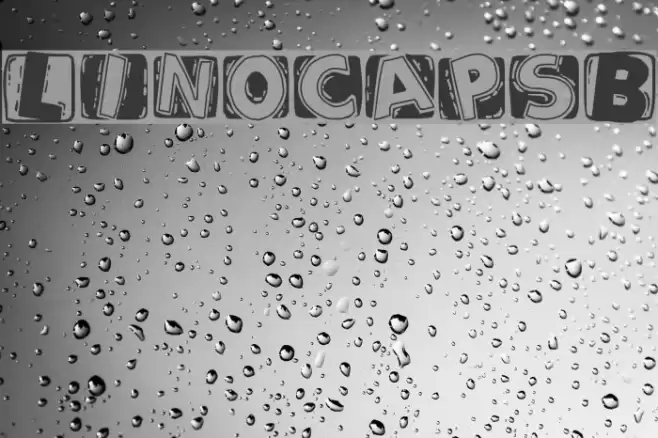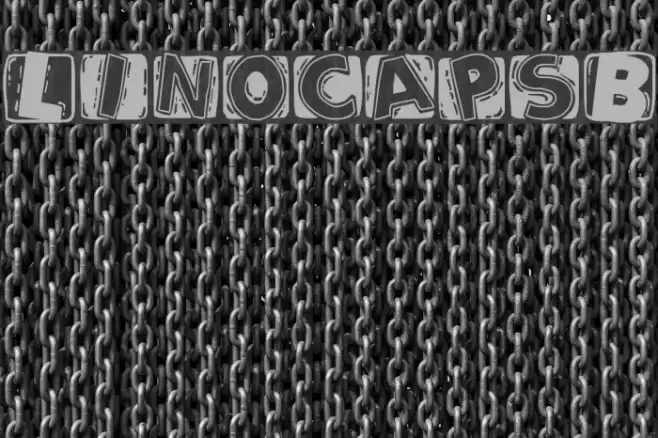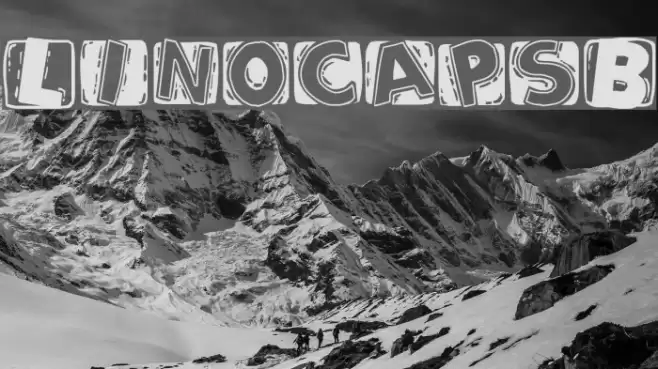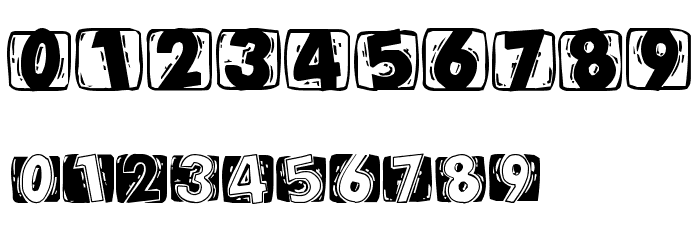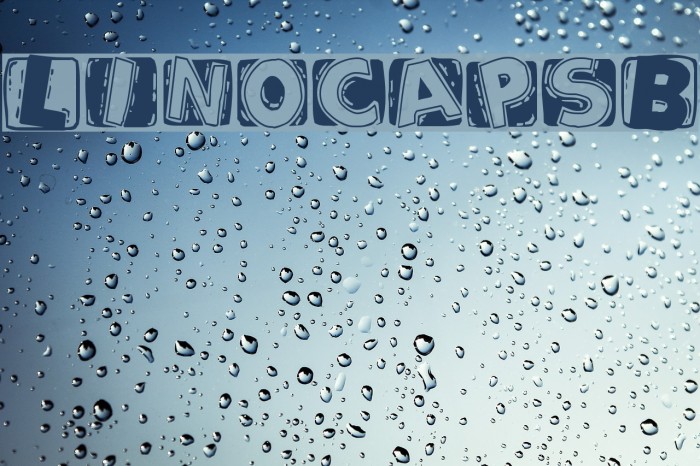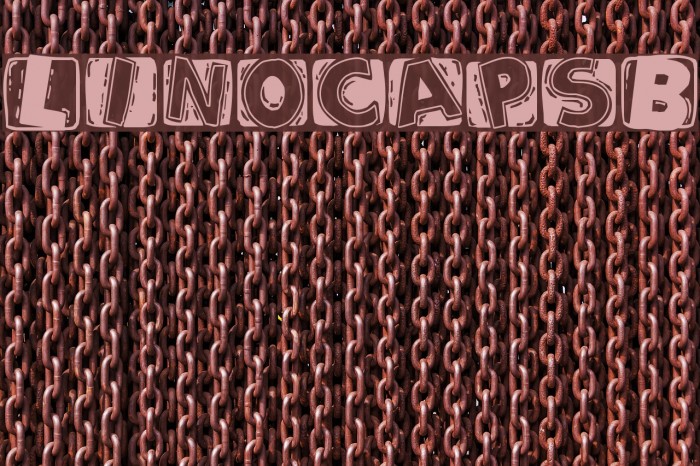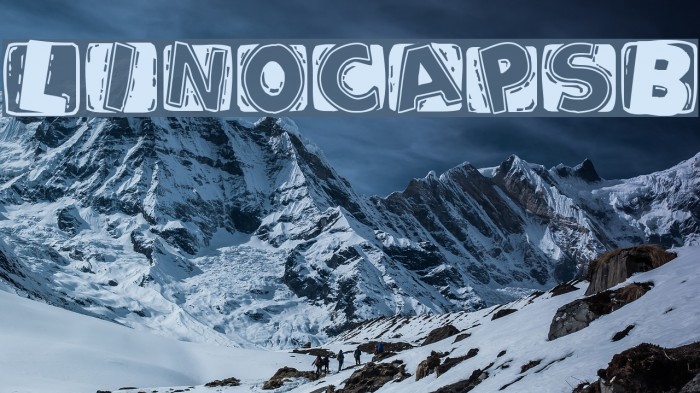
LinocapsB Font
LinocapsB Description
This font features a bold, playful style with a hand-drawn appearance, reminiscent of linocut prints. Each character is enclosed within a square, giving it a blocky and robust look. The letters and numbers are filled with irregular patterns and textures, adding a dynamic and artistic flair. The overall design is eye-catching and unique, making it suitable for creative and informal applications. The font's distinct style makes it stand out, with each character having a slightly different pattern, enhancing its handcrafted feel.
A bold, hand-drawn font with a linocut print style from Uncategorized fonts.
- Proposed Projects: Ideal for posters, album covers, children's books, and creative branding projects.